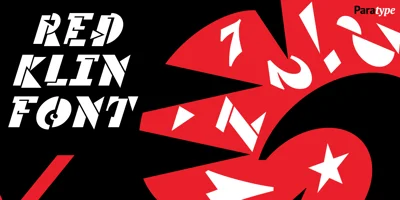
Red Klin Font
Red Klin Font is ideal for industrial branding projects, manufacturing company logos, heavy machinery marketing, construction business signage, automotive industry graphics, steel production materials, and robust engineering presentations.
What makes Red Klin Font exciting is its powerful industrial strength and manufacturing heritage, featuring bold letterforms that capture the essence of heavy industry while delivering commanding presence and industrial authenticity.
The Red Klin Font family includes Light, Regular, Medium, Bold, and Heavy weights, plus industrial texture variants and manufacturing alternates that enhance the font's robust character and industrial appeal.
Red Klin Font embodies the raw power and industrial might of modern manufacturing and heavy industry. This formidable typeface draws inspiration from blast furnaces, steel mills, and industrial machinery, creating a powerful visual language that speaks to audiences who value strength, durability, and industrial excellence. The font's robust character and manufacturing appearance make it perfect for industrial companies, construction firms, and heavy machinery manufacturers that want to communicate reliability, power, and the uncompromising strength of industrial engineering.
Manufacturing companies and industrial organizations consistently choose Red Klin Font for projects that require authentic industrial credibility and powerful visual impact. The typeface's heavy construction and industrial personality make it exceptionally effective for steel producers, construction companies, and manufacturing facilities where strength and industrial heritage are paramount. Each character has been forged with industrial precision to ensure maximum impact across all manufacturing applications and industrial environments.
The manufacturing advantages of Red Klin Font extend beyond its industrial appeal to include practical functionality for heavy industry applications. The font maintains excellent readability in industrial settings while delivering the distinctive character that sets serious manufacturing operations apart from lightweight competitors. Its comprehensive character set includes industrial symbols and manufacturing elements that make it particularly suitable for technical documentation and industrial communication.
Steel companies, construction firms, and heavy industry manufacturers frequently incorporate Red Klin Font into their brand identity systems because of its ability to instantly convey industrial strength and manufacturing expertise. The typeface's powerful aesthetic helps establish credibility in competitive industrial markets while appealing to clients who value robust engineering, industrial reliability, and the proven strength that comes from generations of manufacturing excellence and industrial innovation.